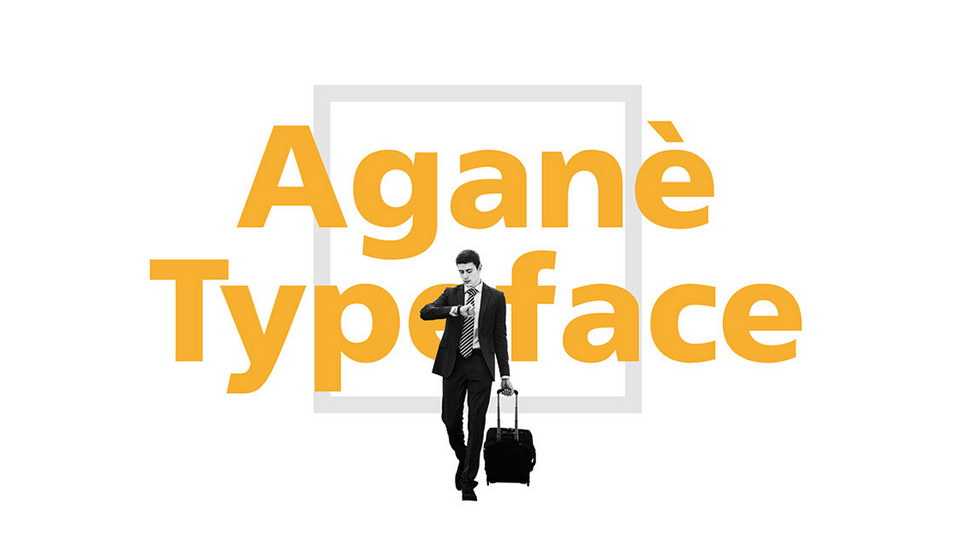
Download Agane typeface, a sans serif font family in two styles and multiple weights. Agane is a tribute to type designer Adrian Frutiger, inspired by his fonts Frutiger and Avenir.
Designer: Danilo De Marco